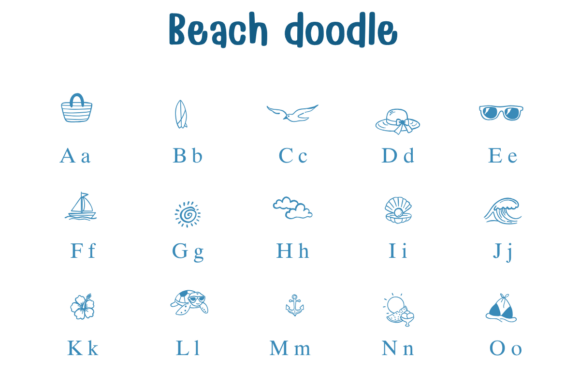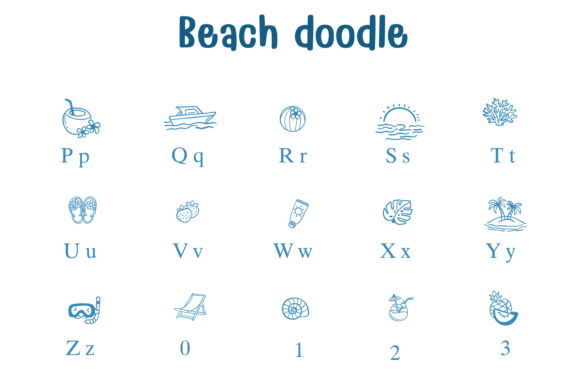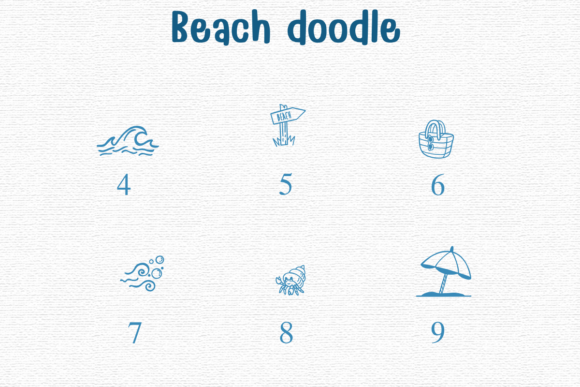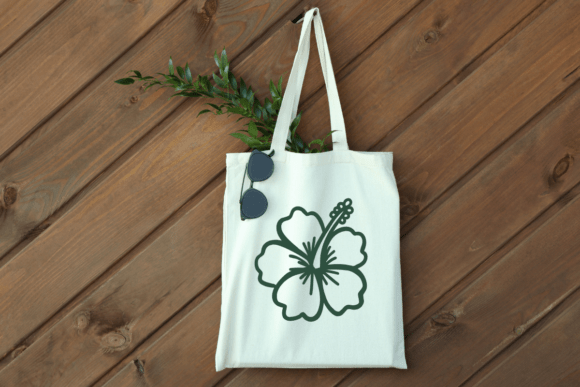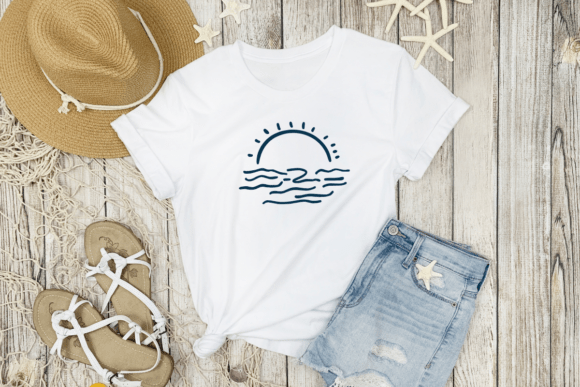
The Beach Doodle Font: A Fun and Quirky Addition to Your Design Toolbox
I’ll never forget the design project that led me to discover the Beach Doodle Font. I was working on a fun beach-themed craft project for a client, and I needed a font that would capture the playful, carefree spirit of the coast. After hours of searching, I stumbled upon this adorable font that perfectly embodied the whimsy and charm I was looking for. In this article, I’ll share my experience with the Beach Doodle Font, its features, and how to make the most of it in your designs.
- ✨ Unique and quirky design that’s perfect for beach-themed projects
- ✅ Extensive character set, including dingbats and doodle-inspired glyphs
- ✅ Supports OpenType features, glyphs, and stylistic alternates
- ⚠️ Some characters may require manual kerning for optimal spacing
- 🤔 Limited language support, primarily suitable for English and Western languages
The Beach Doodle Font was inspired by the carefree spirit of the coast. Imagine a designer who spent countless hours soaking up the sun, playing in the waves, and collecting seashells. This font is a reflection of their playful and creative personality, distilled into a unique and quirky typeface.
| Font Name | Beach Doodle Font |
| Author | Sontaya |